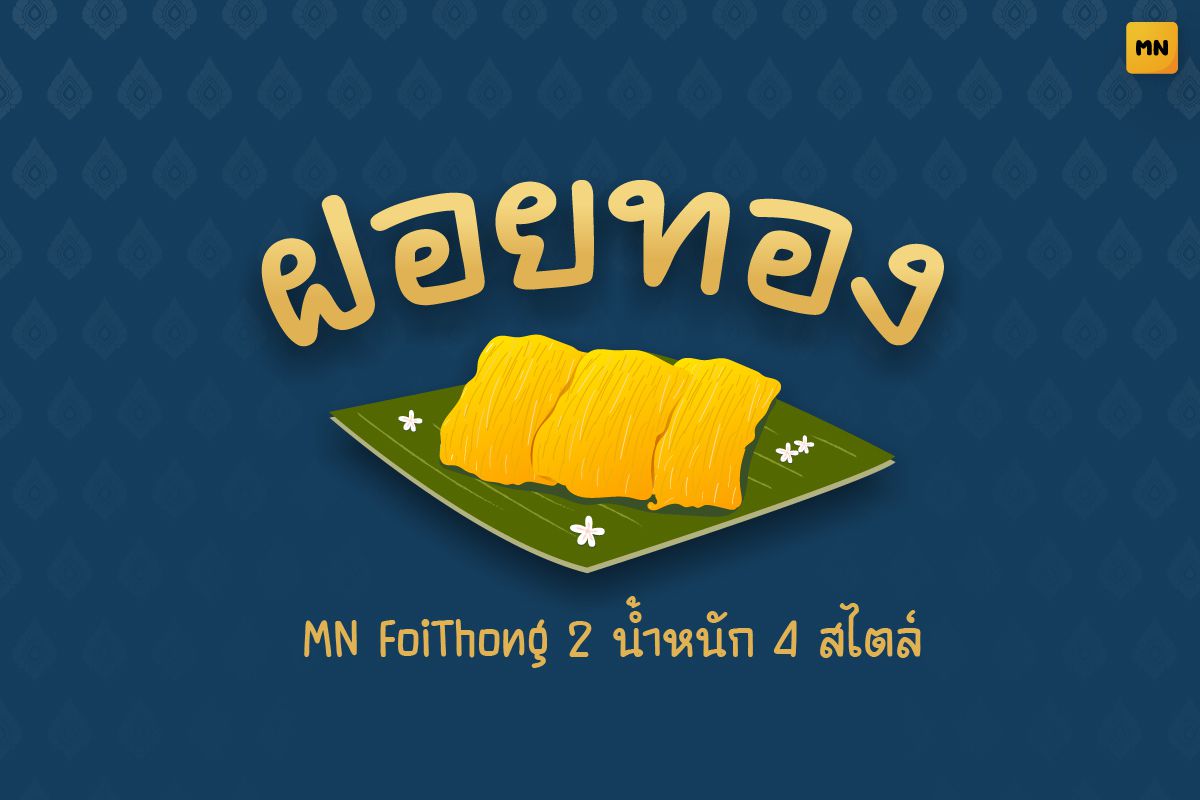
MN FoiThong Regular
A friendly Thai handwriting font with soft rounded edges and gentle curves. Its readable form and warm character make it perfect for café menus, packaging, advertising, and any design that needs a cheerful Thai touch.